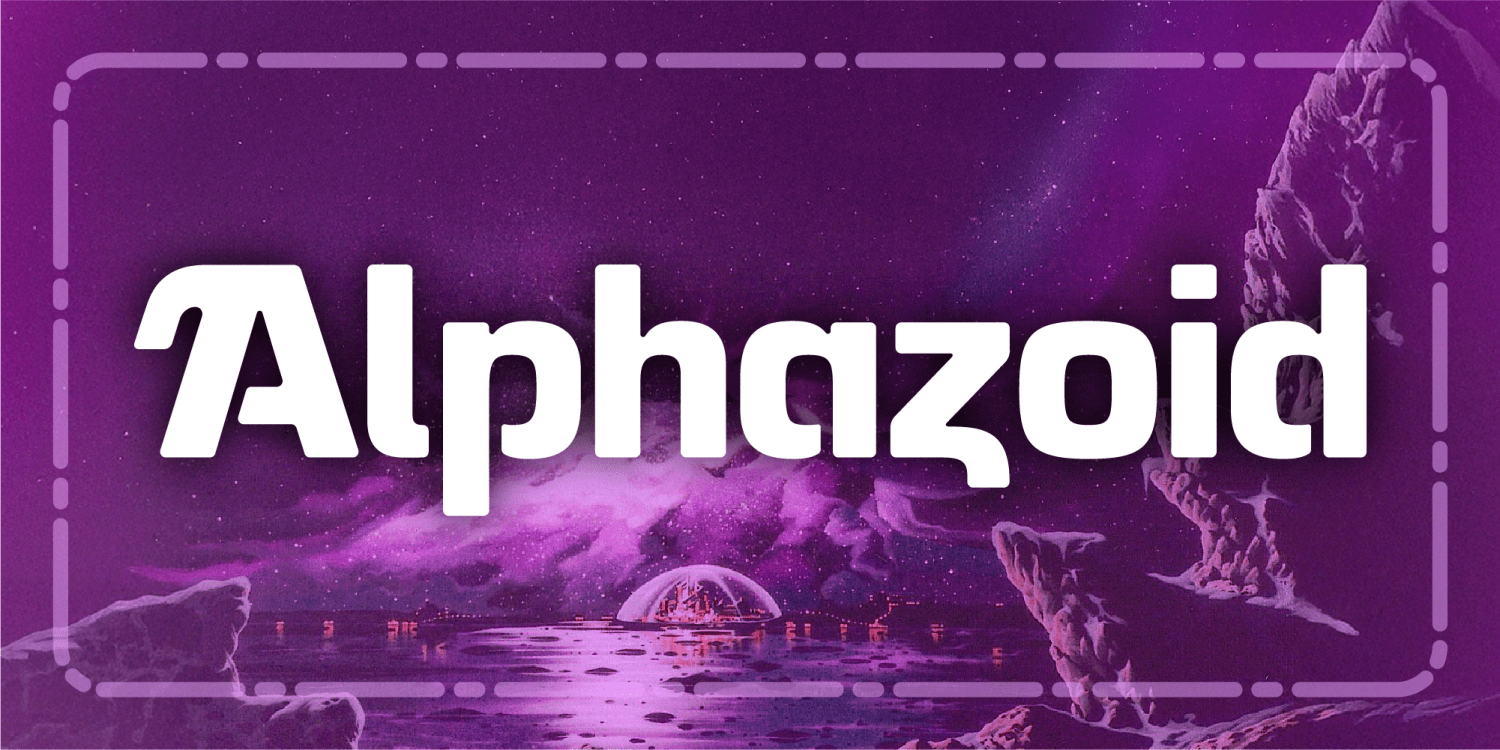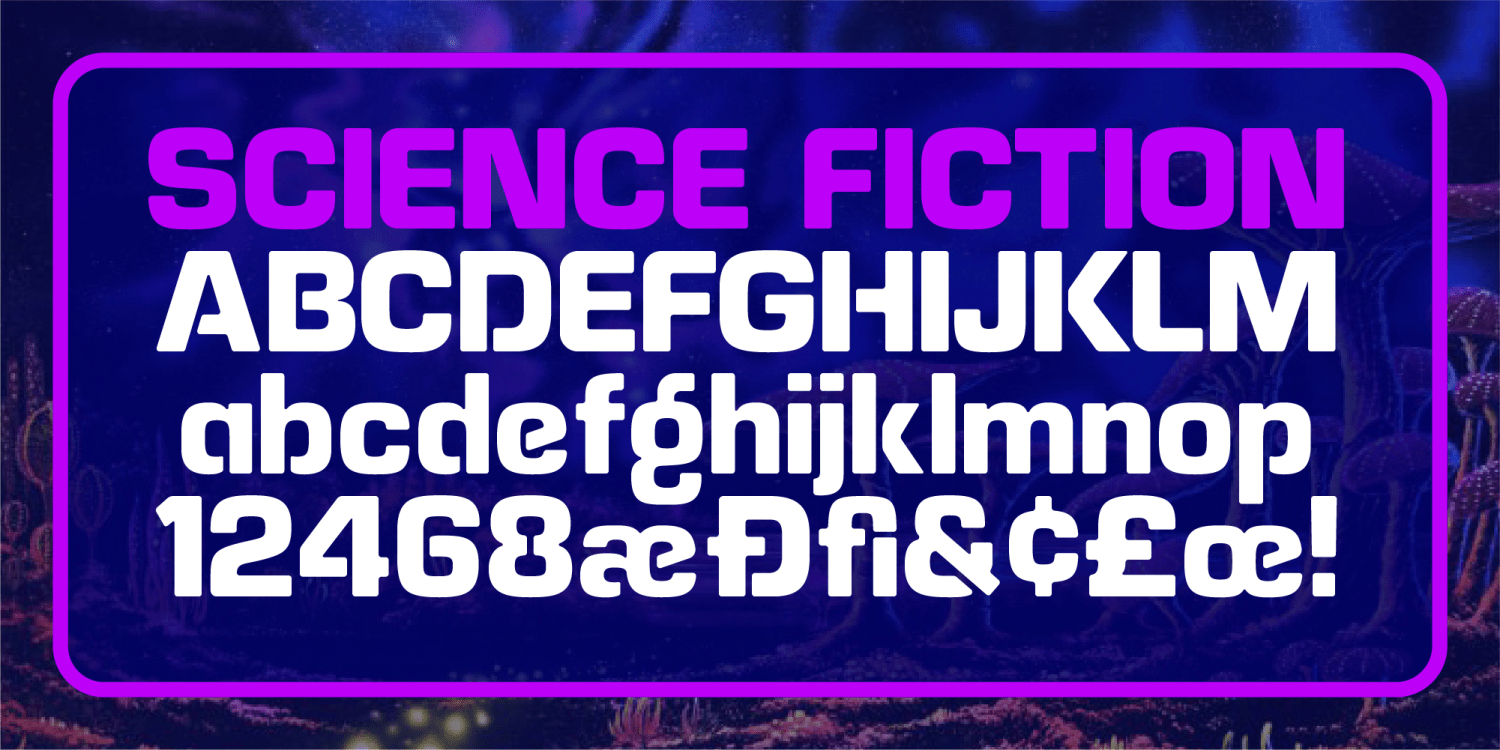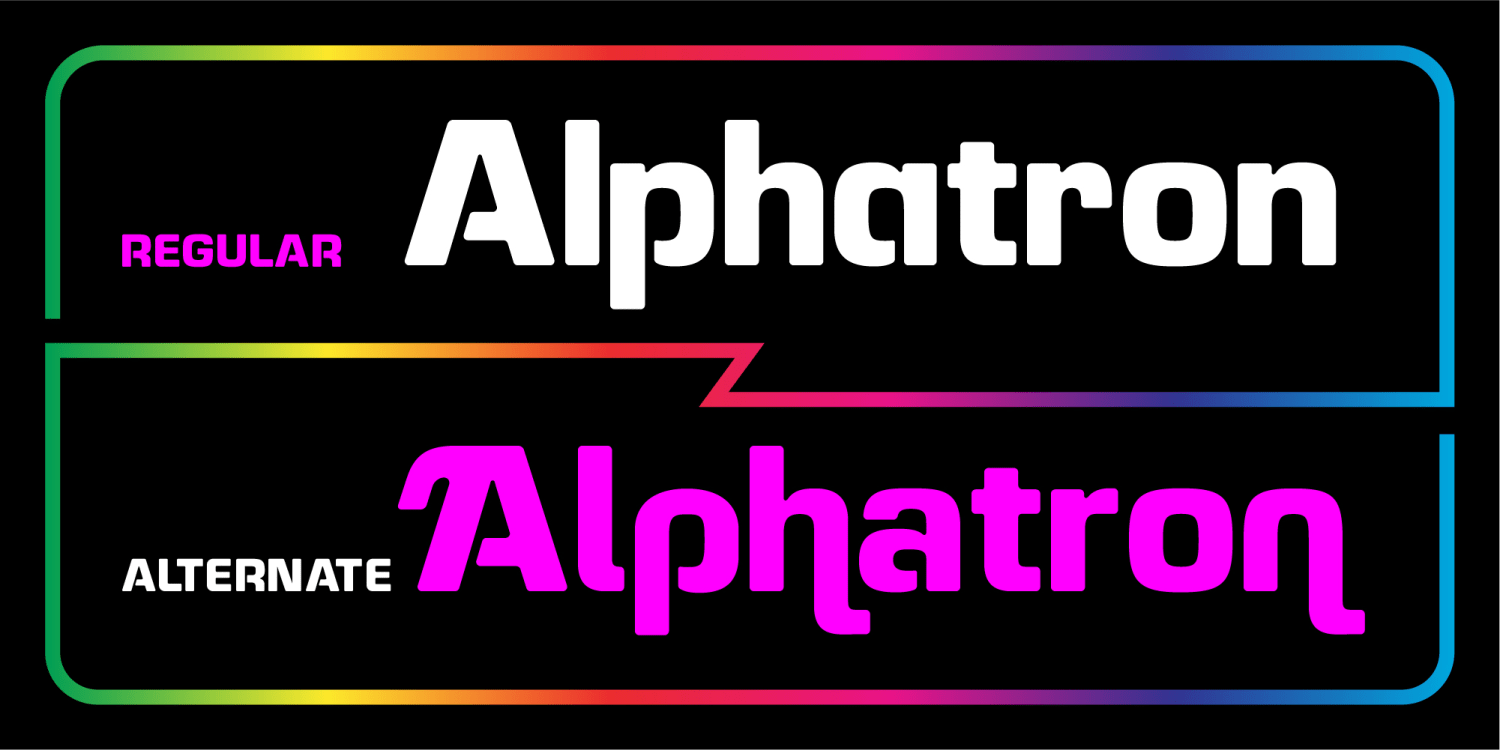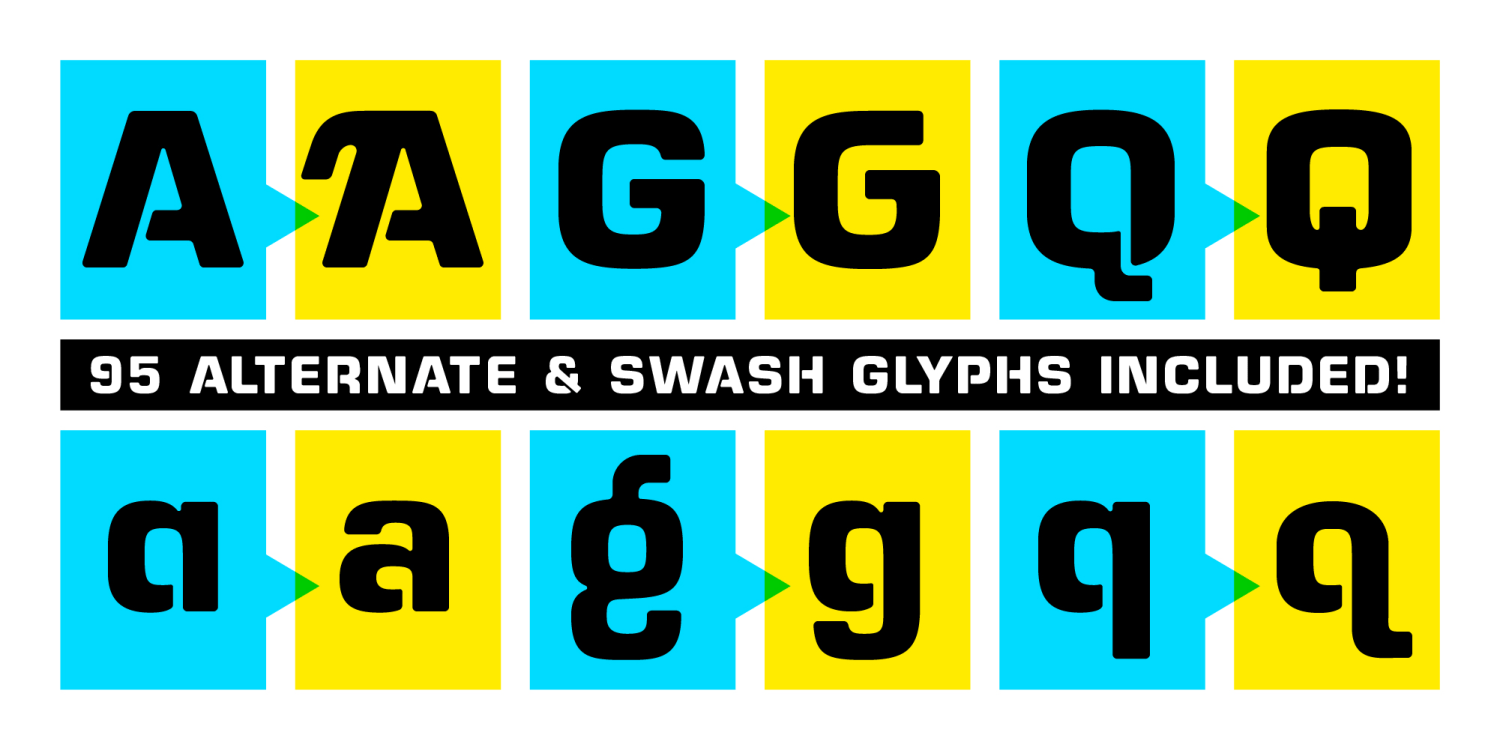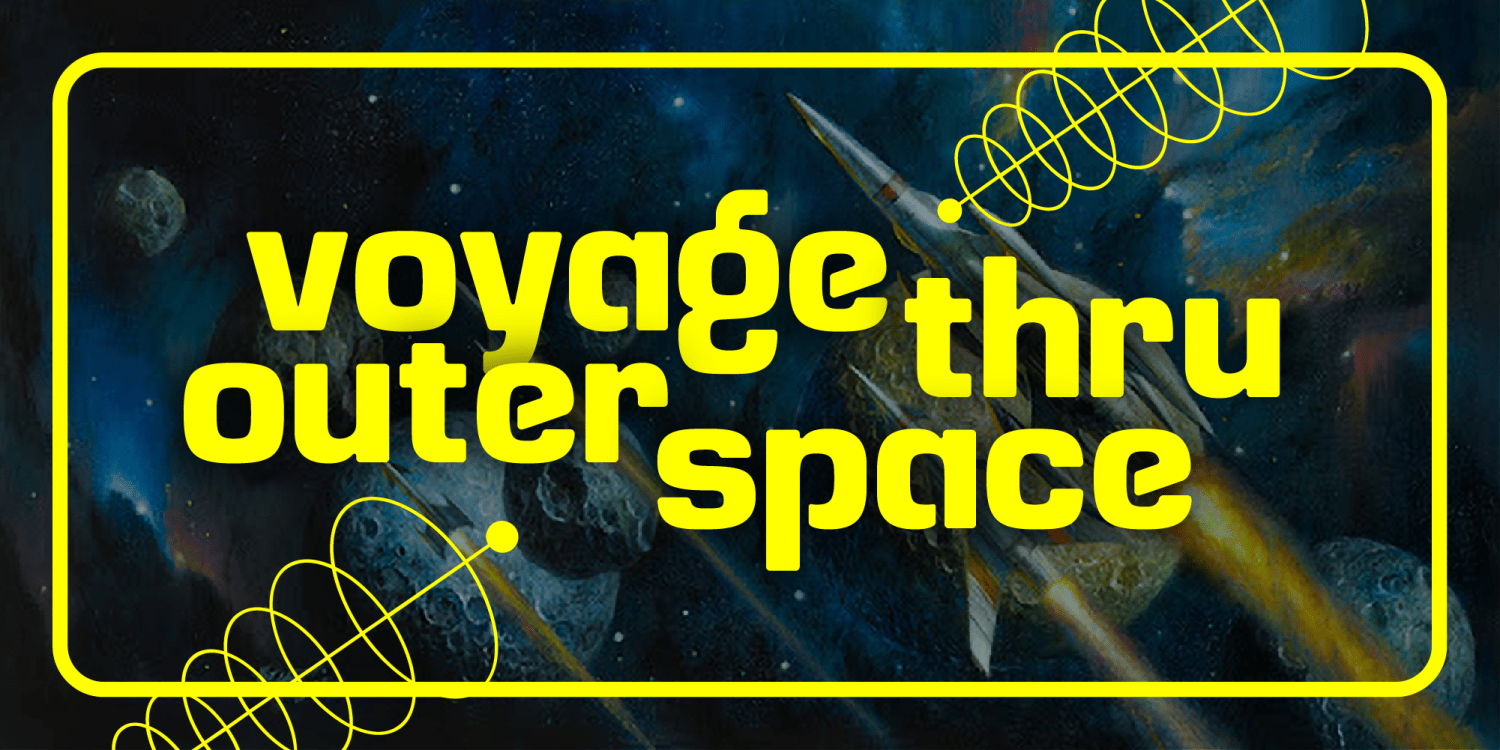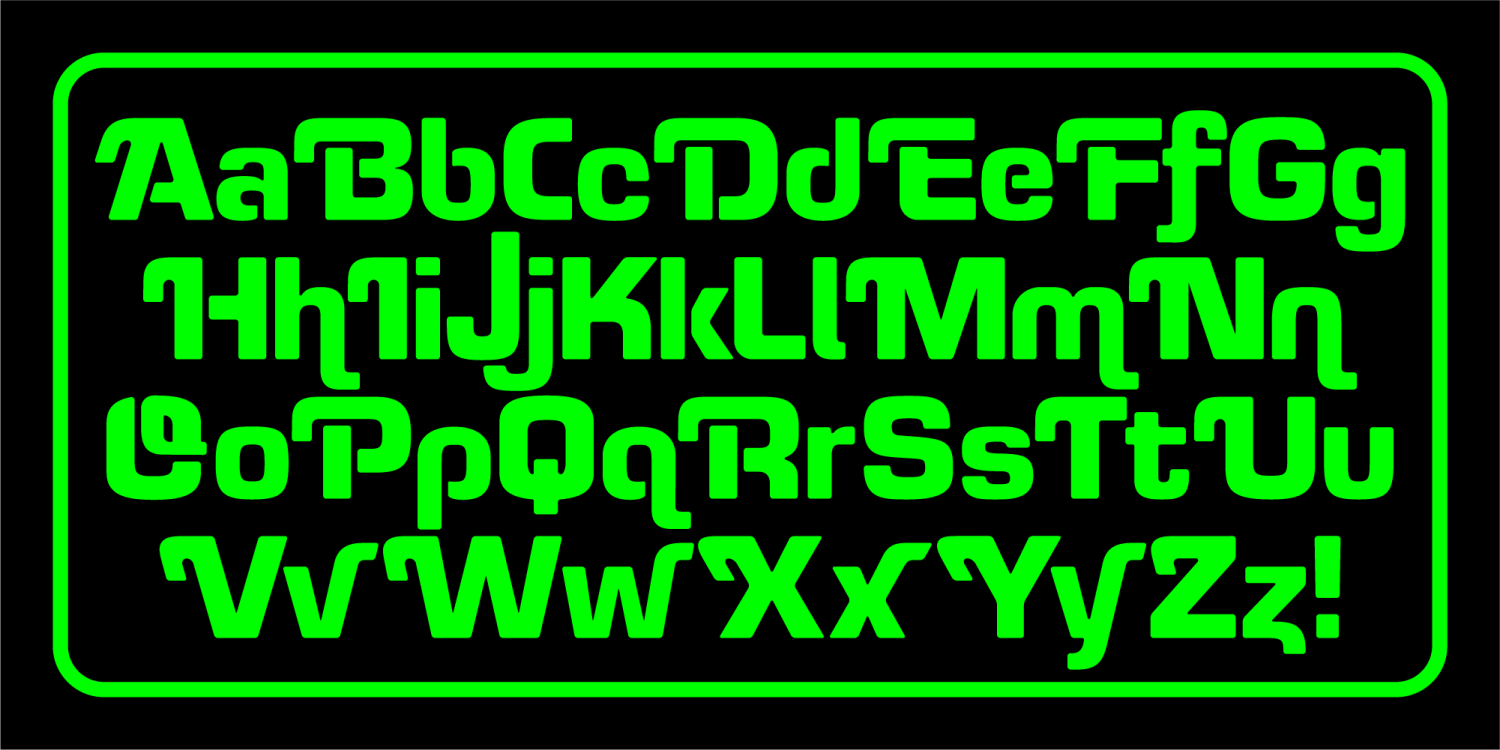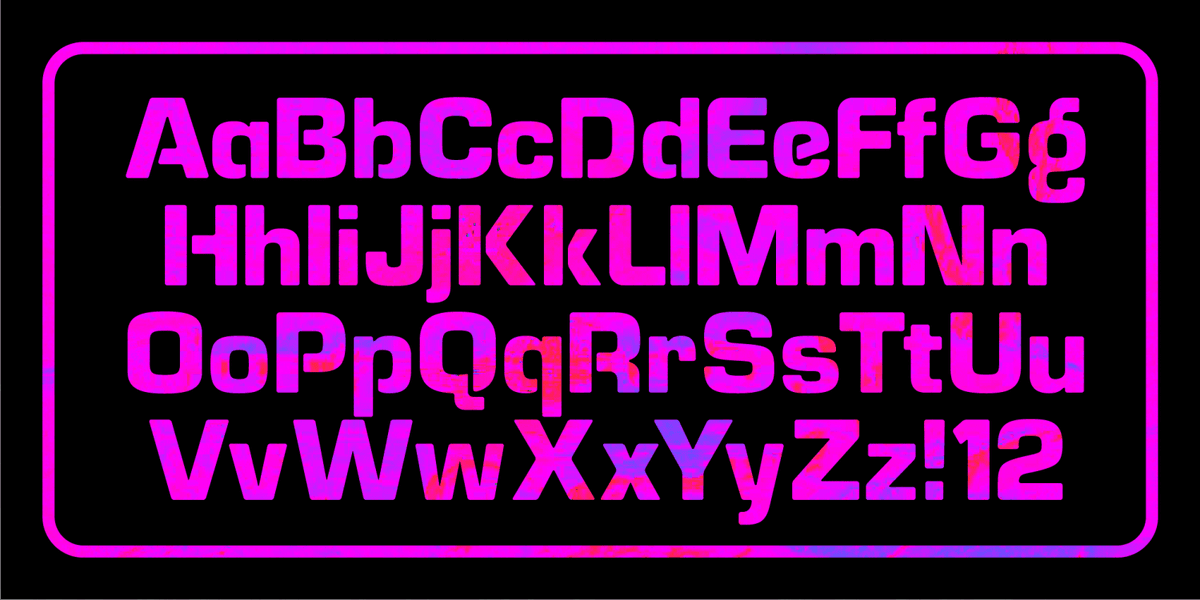
A retro-futuristic typeface beaming straight from the Atomic Age! Inspired by 1960s sci-fi television rocket ships, Alphazoid delivers bold letterforms with a cosmic flair. Perfect for space-age headlines, intergalactic posters, and anything that needs a dash of retro sci-fi charm. Contains regular and swash alternates. Buckle up and blast off with Alphazoid!